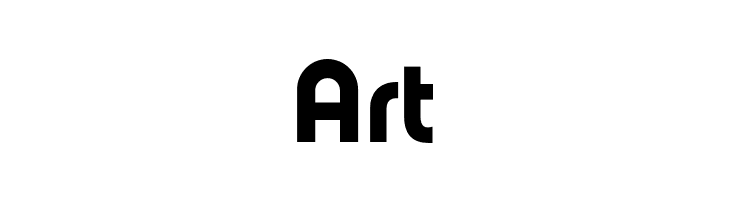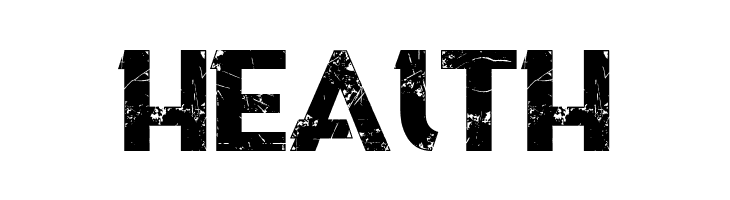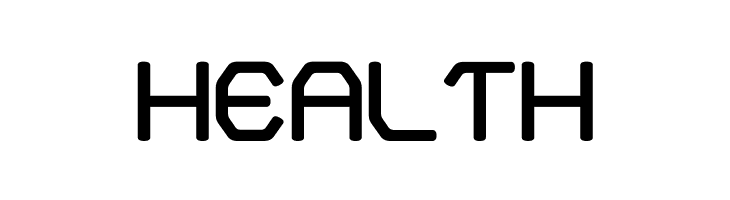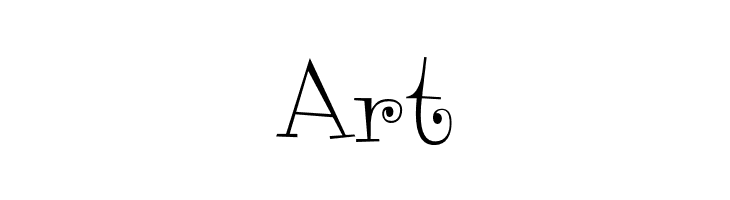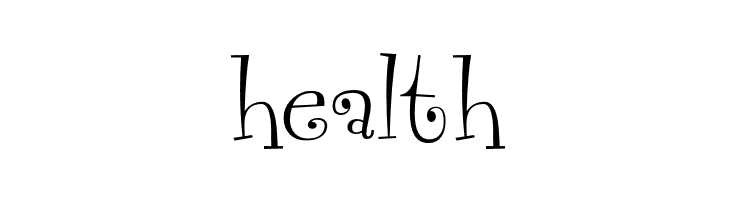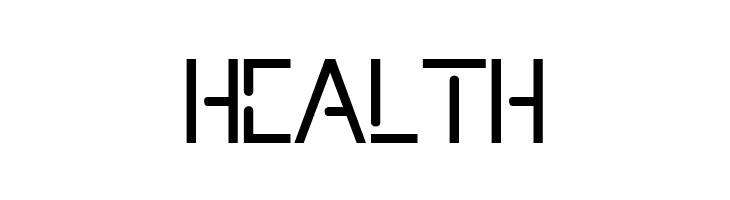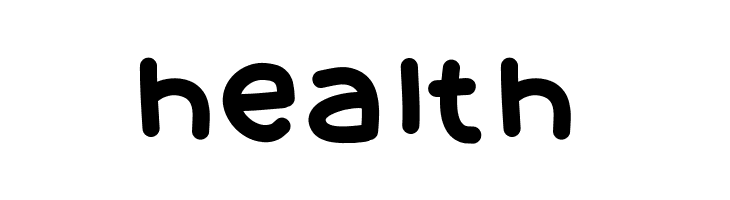
A modern, geometric font with a unique cut-out style and consistent line thickness.
A modern, geometric font with smooth curves and consistent line thickness.
A bold, rounded, and modern geometric font with uniform thickness.
A bold, distressed font with a vintage, textured appearance.
A geometric, modern font with octagonal shapes and uniform thickness.
A dynamic, handwritten script font with fluid, connected letters and varying stroke thickness.
A playful, handwritten font with rounded edges and consistent stroke thickness.
A whimsical and playful font with curly serifs and varied line thickness.
A modern, geometric font with bold, clean lines and uniform thickness.